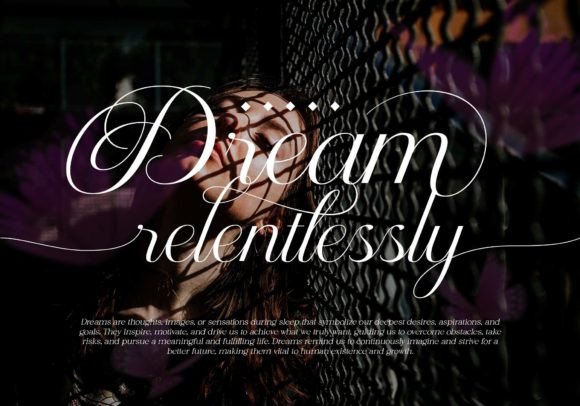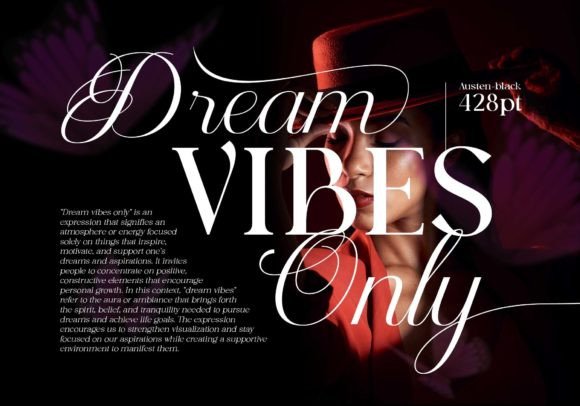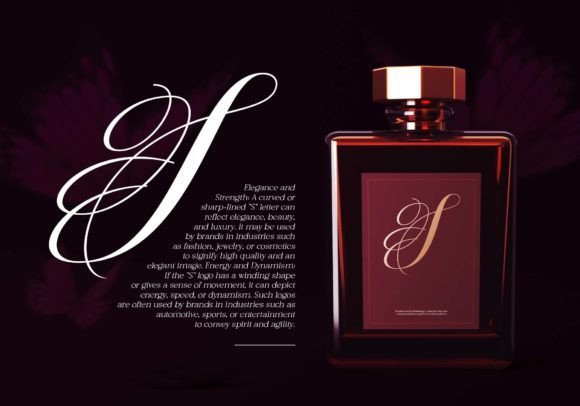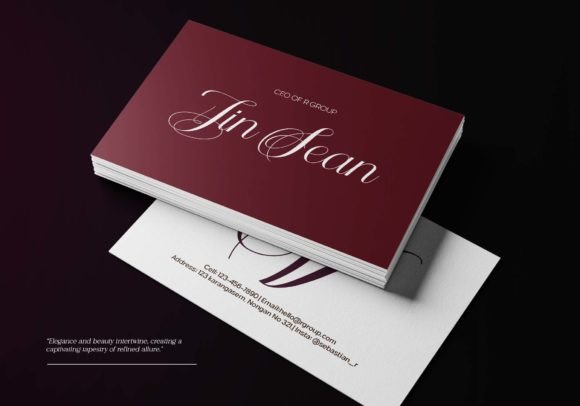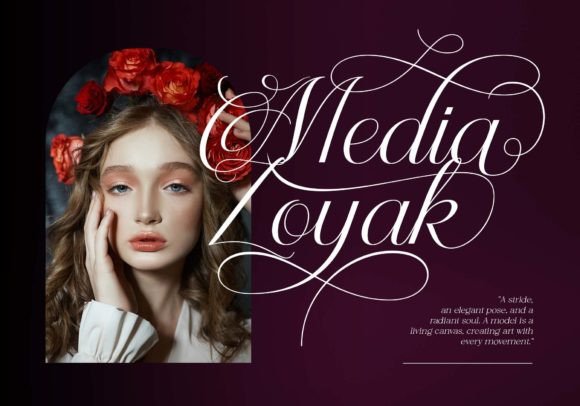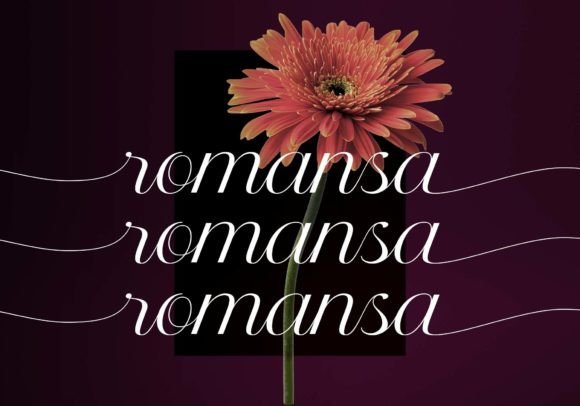
Introducing Altheria Font: Elevate Your Designs with Exquisite Handwriting Style
In the realm of typography, a font can make or break the visual appeal of a design project. For designers and crafters seeking to infuse their works with a touch of luxury and elegance, Altheria Font emerges as a game-changer. This script font boasts an exquisite handwriting style, meticulously designed to offer a distinctive edge to your creative endeavors. With its intricate details and versatile character set, Altheria Font is poised to revolutionize the way you approach design.
The Beauty of Altheria Font
Altheria Font is not just another script font; it’s a masterpiece crafted with precision and passion. Its handwriting style is characterized by flowing lines, elegant strokes, and a sophisticated charm that instantly elevates the aesthetic value of any design. Whether you’re working on a book cover, fashion magazine, business card, or wedding invitation, Altheria brings a level of refinement and poise that’s hard to match.
Unleash Creativity with Alternate Characters
One of the standout features of Altheria Font is its extensive collection of alternate characters. This thoughtful design element allows designers to create unique, captivating, and embellishing letterforms that add a personal touch to their work. With numerous options at your disposal, you can experiment with different combinations to achieve the perfect look for your project. This level of customization not only enhances the visual appeal but also ensures that your design stands out in a crowded creative landscape.
Multilingual Support for Diverse Projects
In today’s globalized world, design projects often require multilingual support. Altheria Font rises to the challenge by offering compatibility with multiple languages. This versatility makes it an invaluable asset for designers working on international projects or those who cater to a diverse clientele. Whether you’re creating content for a global audience or targeting a specific linguistic group, Altheria Font provides the flexibility you need.
The applications of Altheria Font are limitless, making it a perfect fit for a wide array of design projects. Here are some examples of where Altheria can make a significant impact:
- Book Covers: Give your novel or non-fiction book a sophisticated look that captures the essence of your writing.
- Fashion Magazines: Elevate your fashion content with a font that exudes style and luxury.
- Business Cards: Make a lasting impression with a card that reflects your professional elegance.
- Wedding Invitations: Add a touch of romance and sophistication to your wedding invitations.
Why Choose Altheria Font?
Altheria Font is more than just a typeface; it’s a design experience. Here’s why it should be your go-to font for luxury and elegance:
- Unique Luxury and Elegance: Altheria imparts a distinct luxury and elegance to your designs, setting them apart.
- Highly Versatile: From digital platforms to print media, Altheria adapts seamlessly across different mediums.
- Attention to Detail: The font’s design showcases meticulous attention to detail, ensuring high-quality visuals.
- Creative Freedom: With its extensive character set and multilingual support, Altheria offers unparalleled creative freedom.
Altheria Font is a game-changing script font that brings an exquisite handwriting style to the world of design. Its meticulous design, extensive character collection, and multilingual support make it an indispensable tool for designers and crafters aiming to create visually stunning and distinctive works. Whether you’re looking to add a touch of elegance to your designs or seeking a font that offers limitless creative possibilities, Altheria Font is your perfect companion. Elevate your design projects with the luxury and elegance that Altheria has to offer.